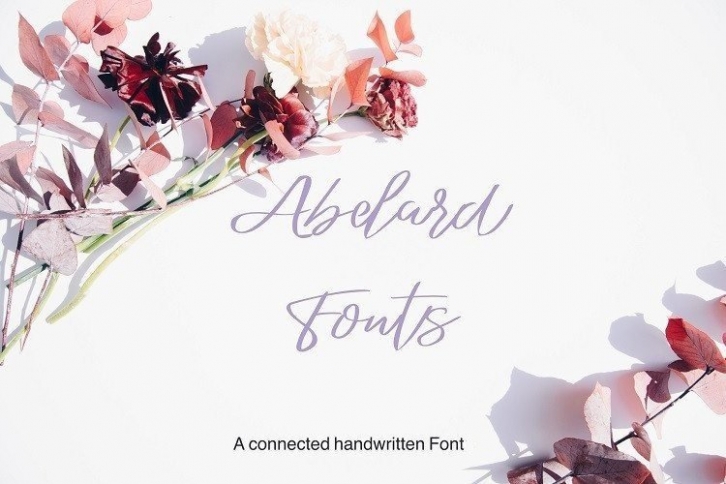
Abelard is a slanted, modern, and expressive script font. With a rough brush contrast stroke, fun character with a bit of ligature, and alternates to give you extra creative work. This font is good for logo design, Social media, Movie Titles, Books Titles, short text, and even long text, and good for your secondary text with a sans or serif. Make a stunning work with Abelard Font!